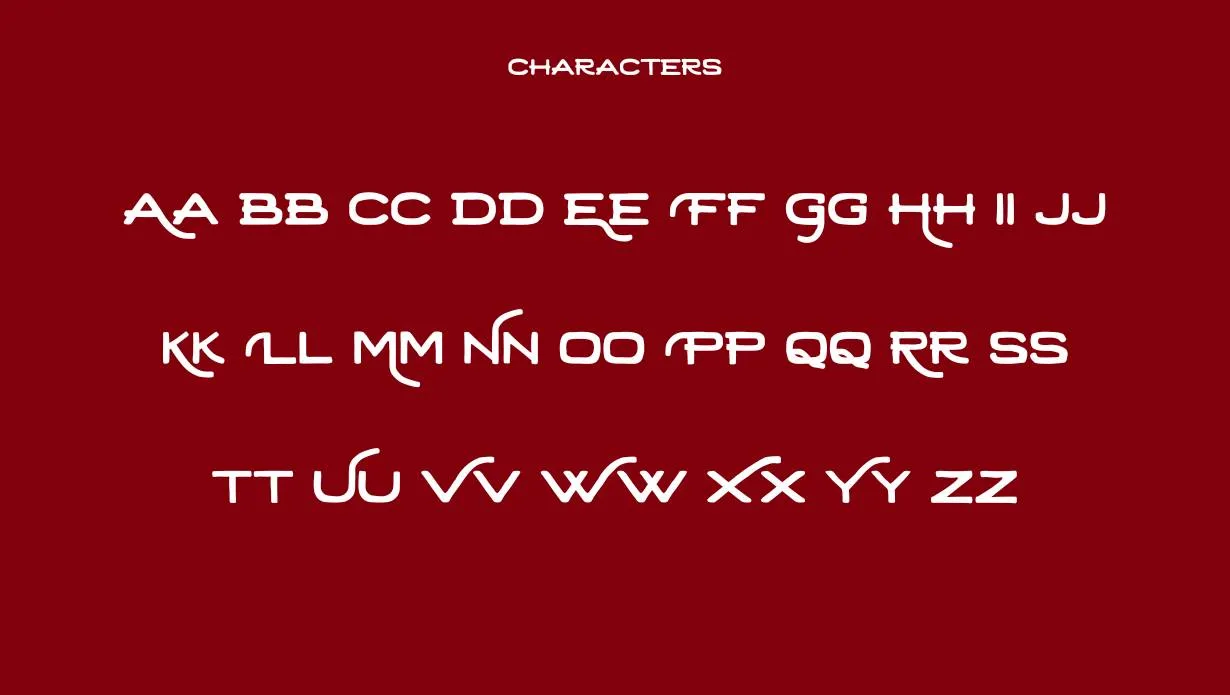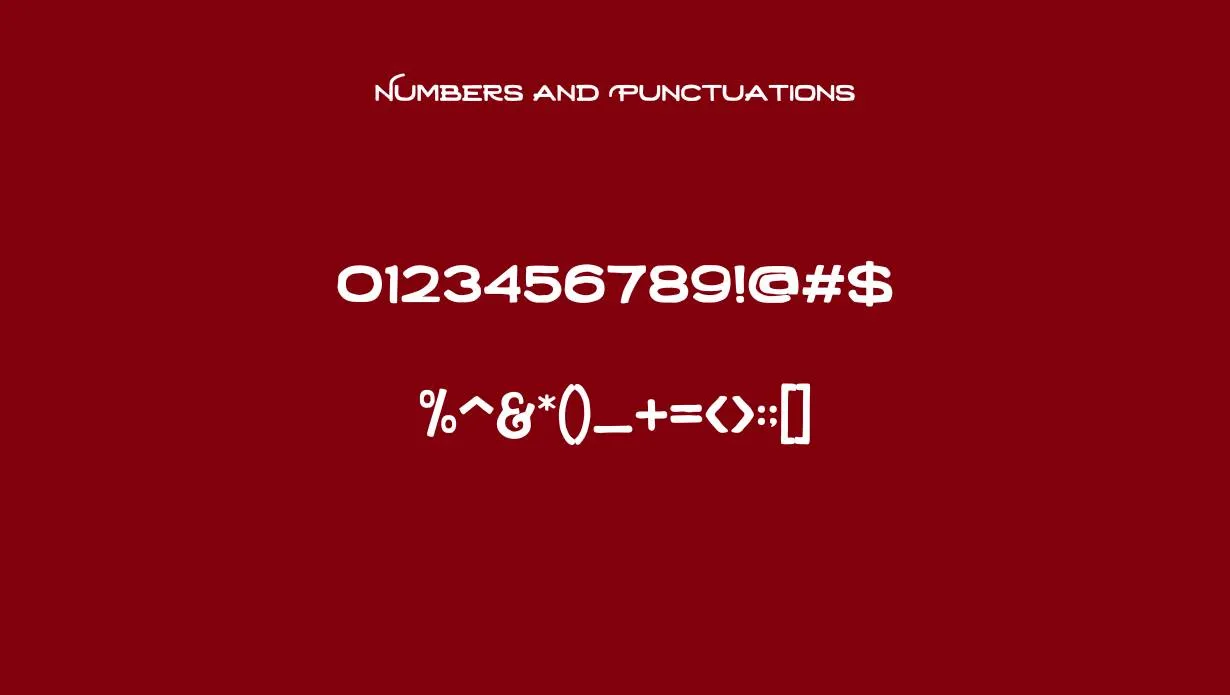
Retrica Font Free Download
Retrica Font has bold and extra-expanded width characters. This typeface belongs to the fancy font with a touch of retro font family as well. The non-monospaced characters of this font capture the attention of the audience quickly due to its vintage look.
| Designer | Ryan Prasetya |